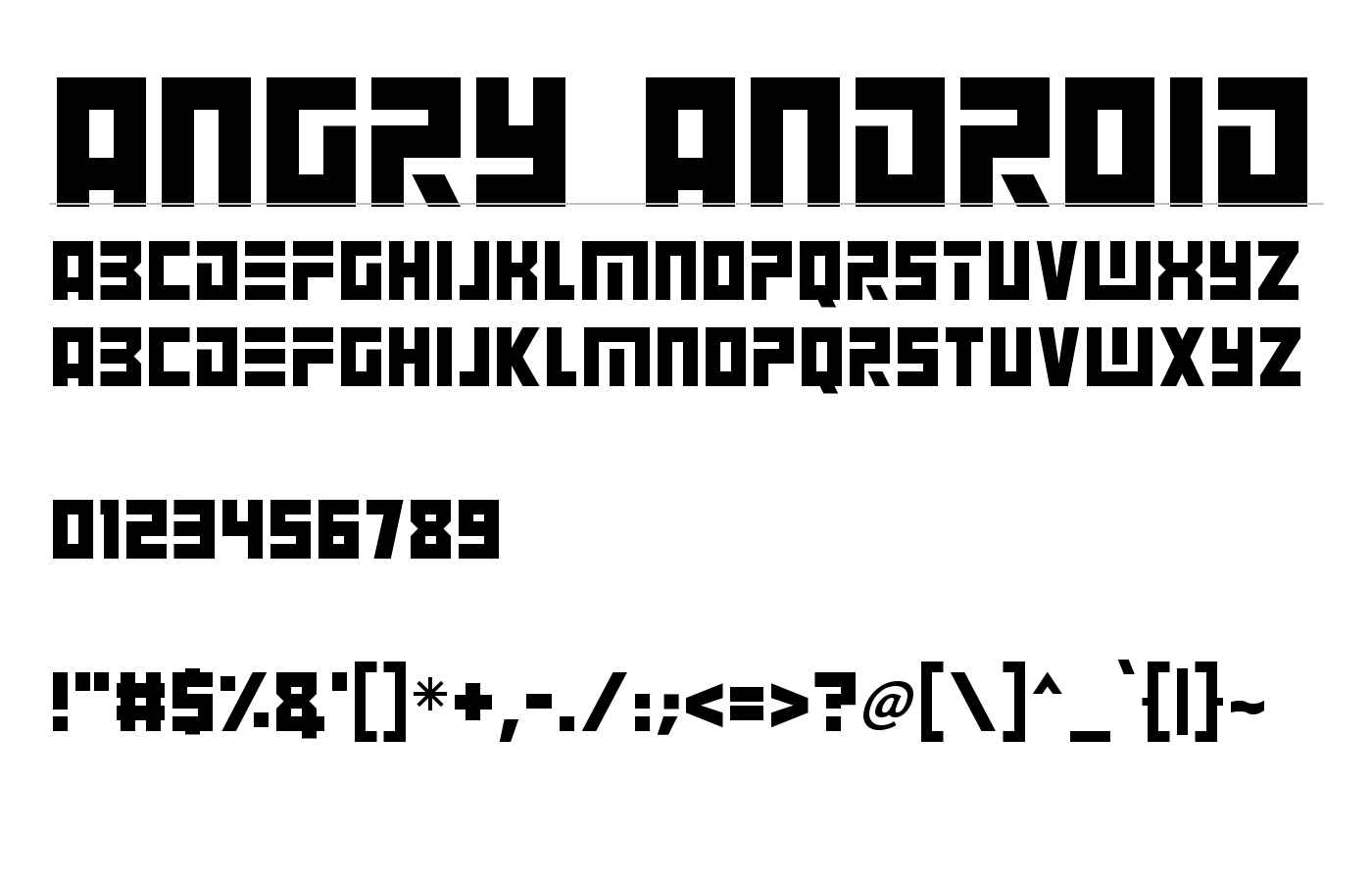
Angry Android is a bold, blocky sans serif font with a futuristic, tech-inspired vibe. Its heavy weight, square shapes, and sharp edges give it a strong, mechanical feel, making it ideal for headlines, logos, and designs that need a modern, robotic personality. This font works well in gaming, technology branding, and any project seeking a bold, impactful visual statement.
Angry Android Font
About Angry Android Font